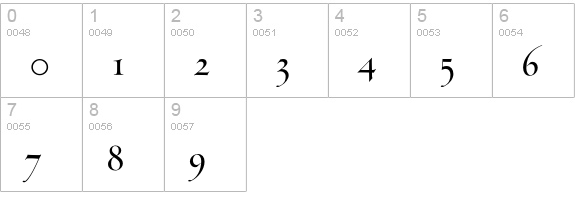
ThrohandRegular-Roman Font Details
ThrohandRegular-Roman is a versatile and elegant font that exudes a sense of timeless sophistication. With its clean lines and balanced letterforms, this font is perfect for a wide range of design projects, from branding and packaging to editorial and web design. The ThrohandRegular-Roman font offers a harmonious blend of classic and contemporary elements, making it suitable for both traditional and modern designs. Its well-defined characters and legible letterforms ensure clear communication, while its subtle details and slight variations add a touch of personality and charm. One of the most remarkable aspects of ThrohandRegular-Roman is that it is available for free. That's right, this high-quality font can be downloaded without any cost at FontsMarket.com. This means that designers and creatives can access this exceptional font and incorporate it into their projects without any financial burden. Whether you are a professional designer or a hobbyist, ThrohandRegular-Roman is a valuable addition to your font library. Its versatility and timeless appeal make it a reliable choice for a variety of design needs. So why wait? Head over to FontsMarket.com and download ThrohandRegular-Roman for free today!